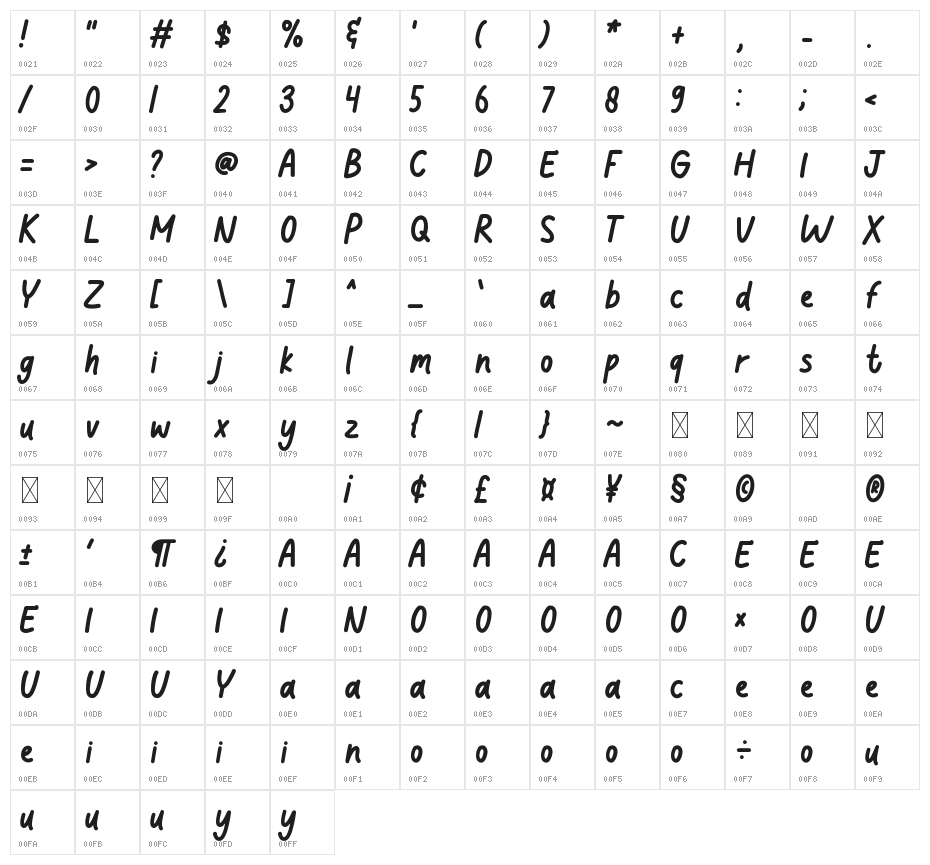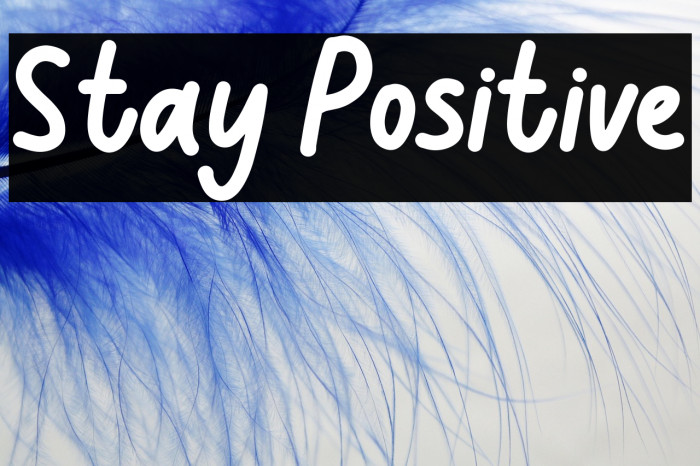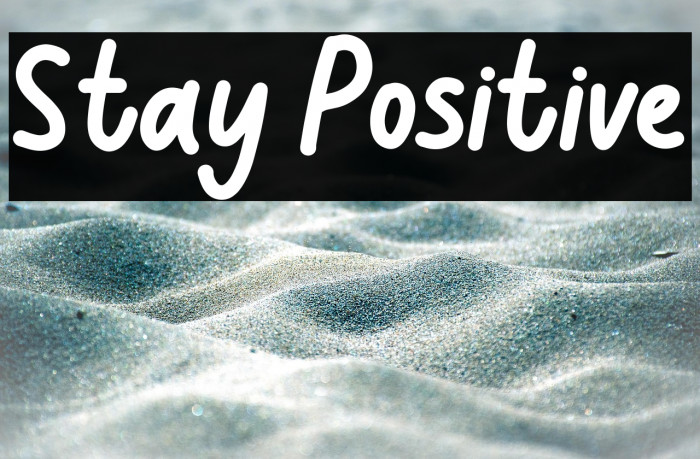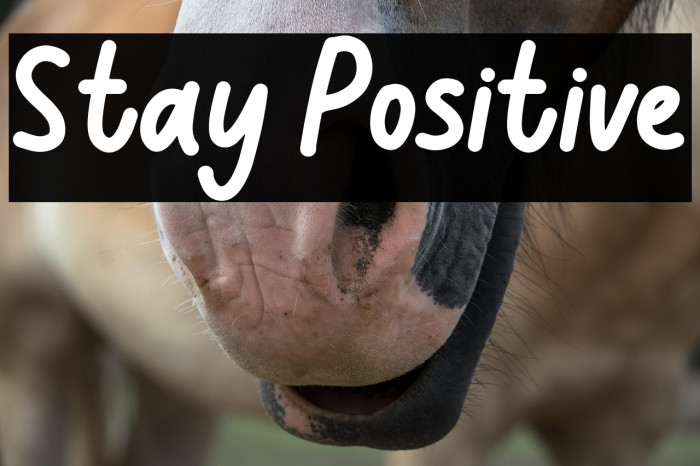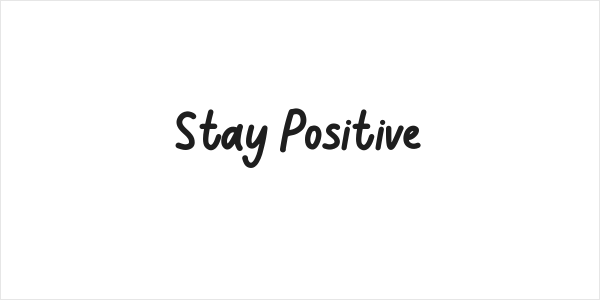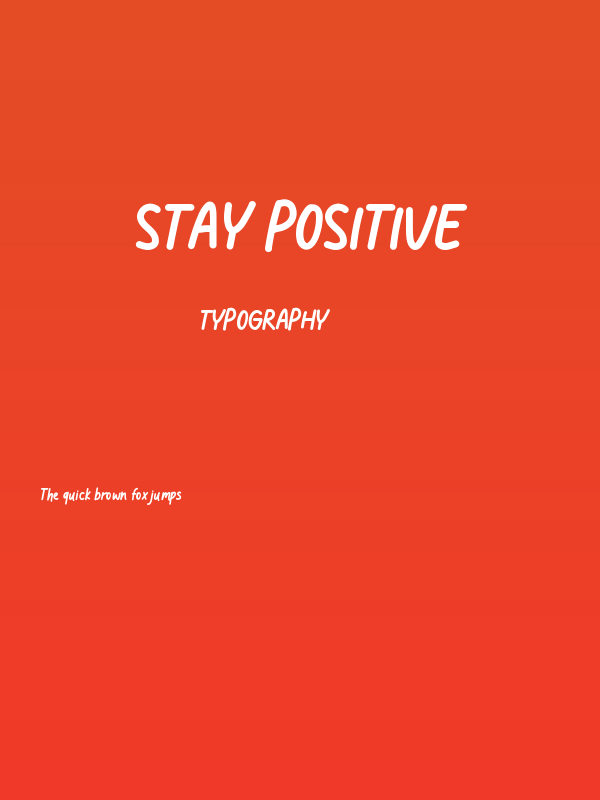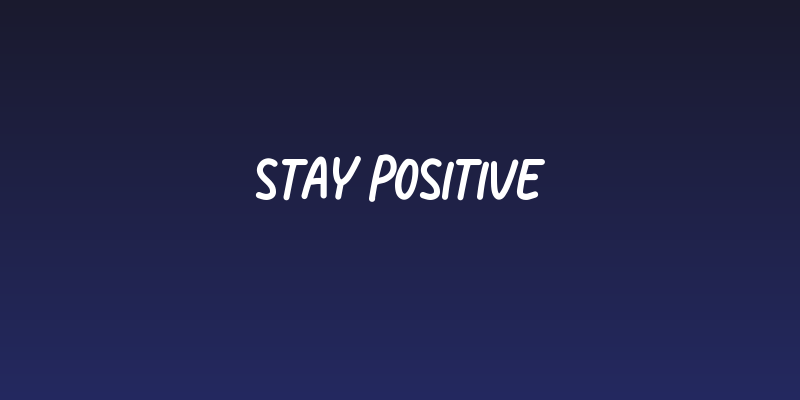
Stay Positive Font
Stay Positive Description
This font exudes a playful and energetic vibe with its handwritten style. The letters are slightly slanted, giving a casual and friendly appearance. The strokes are consistent in thickness, providing a balanced and harmonious look. The rounded edges of the characters contribute to its approachable and informal feel. The font maintains good legibility, making it suitable for various applications where a personal touch is desired. The numbers and special characters are designed to match the overall style, ensuring a cohesive appearance across all text elements.
| Use Case | Headlines, Informal text, Branding |
| Proposed Projects | Ideal for greeting cards, social media graphics, children's books, and informal branding projects. |